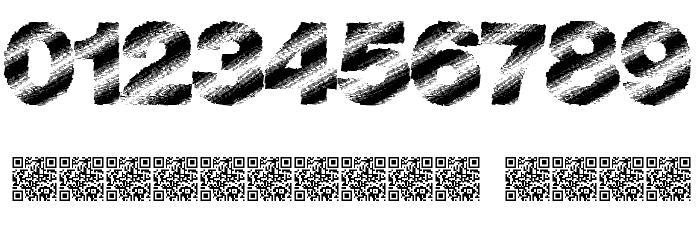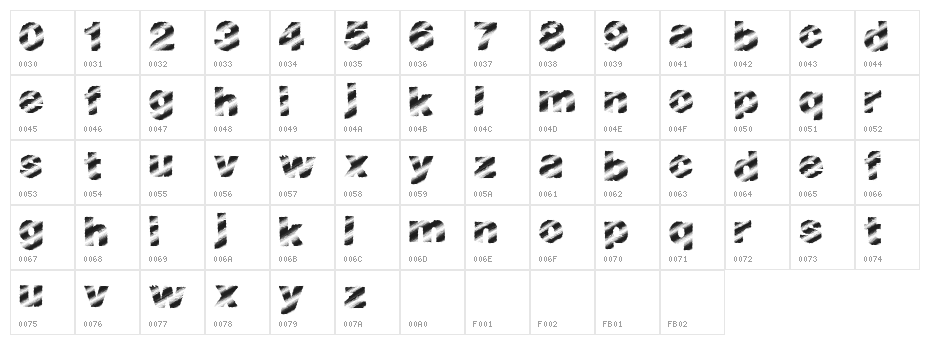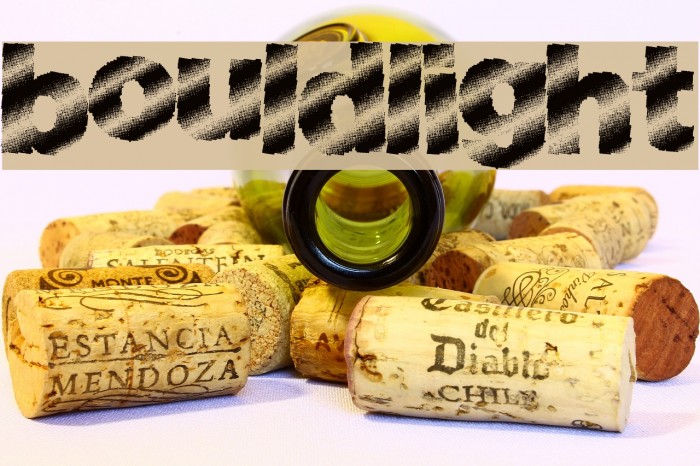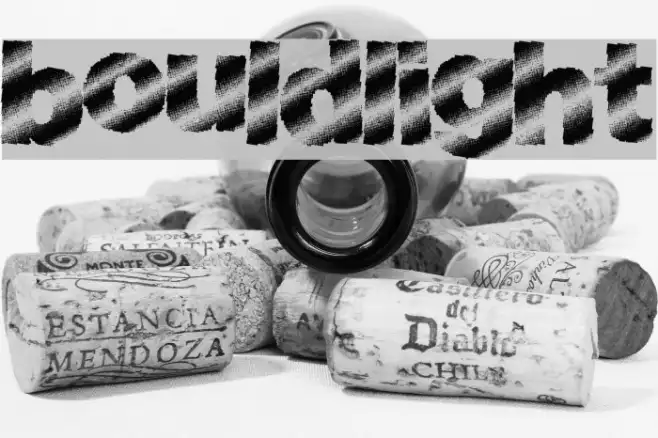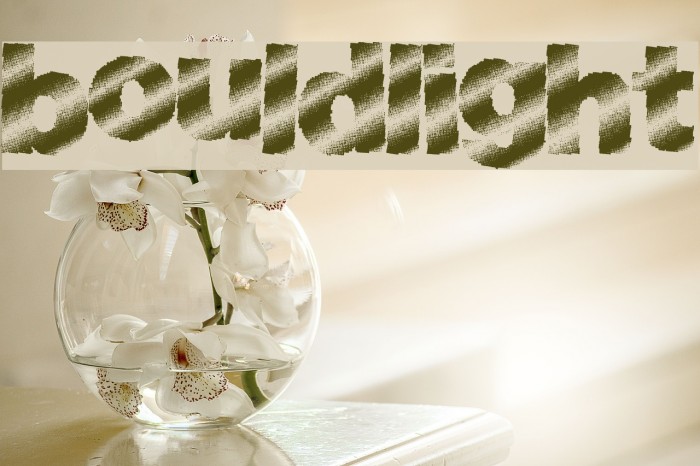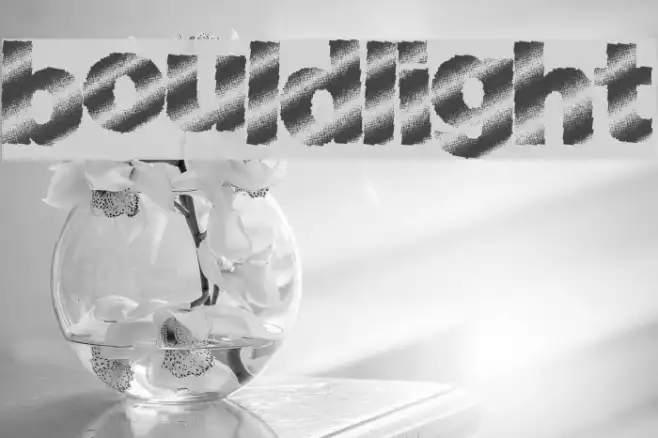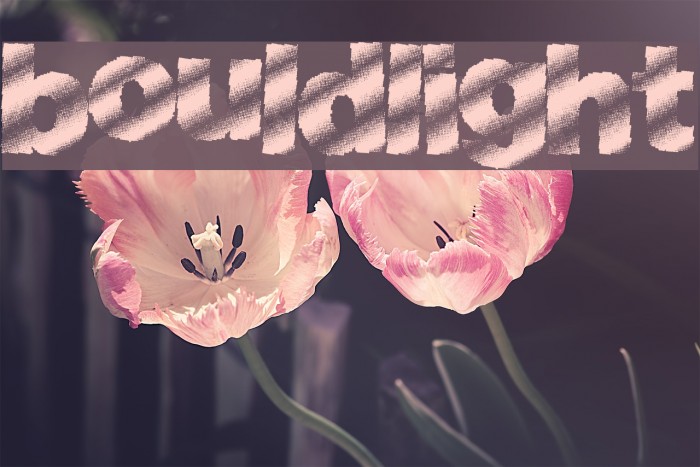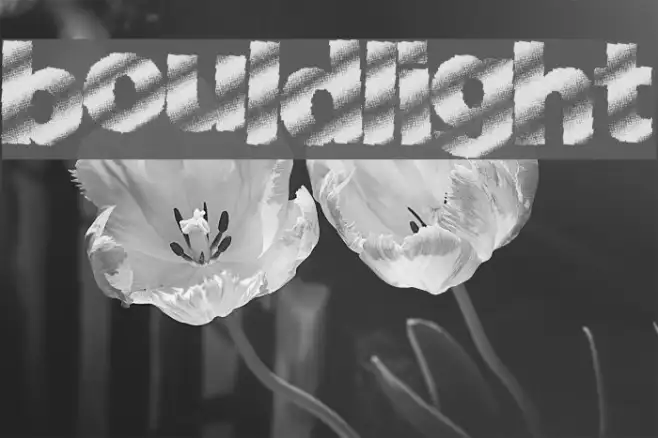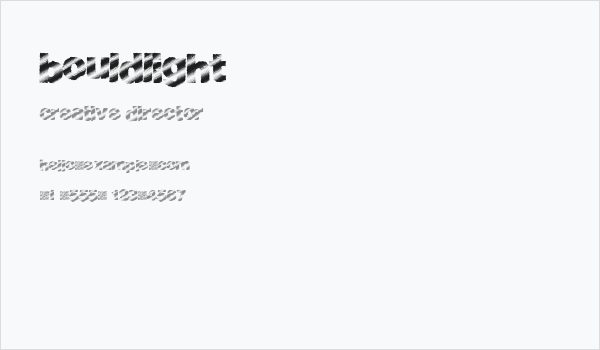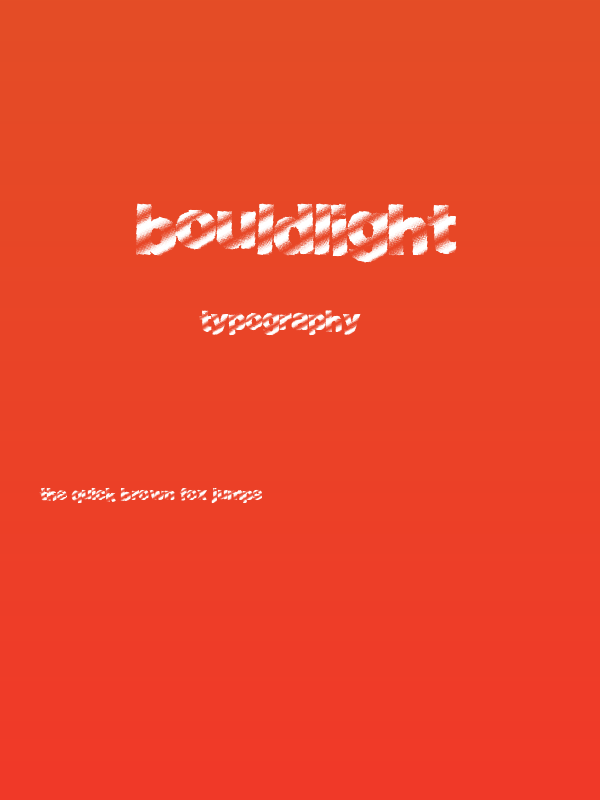
BouldLight Font
BouldLight Description
This font features a bold and dynamic style with a textured, brush-like appearance. The characters are thick and exhibit a sense of movement, as if they were painted with a broad brushstroke. The texture within each letter adds depth and a tactile quality, making it stand out in any design. The uppercase and lowercase letters maintain a consistent style, with rounded edges and a slightly condensed form. Numbers and special characters follow the same aesthetic, ensuring uniformity across all elements. This font is ideal for projects that require a strong visual impact and a creative flair.
| Proposed Projects | Ideal for posters, branding, headlines, and any project needing a bold, artistic touch. |